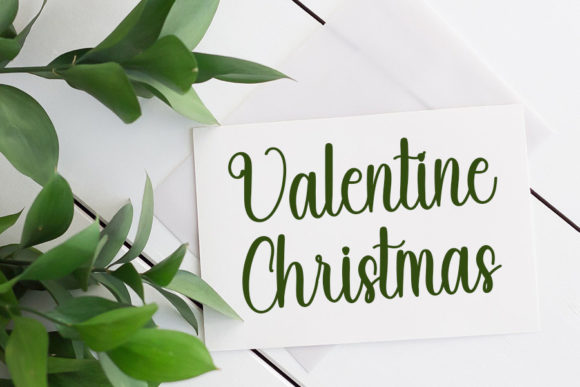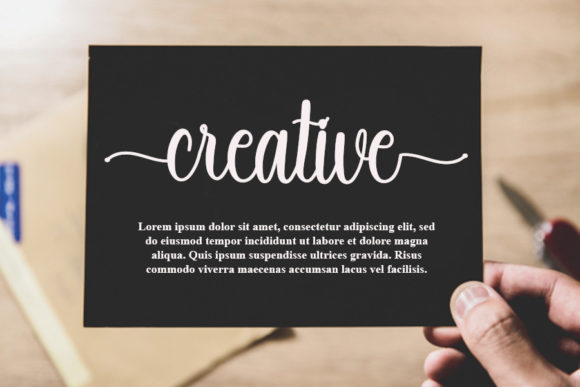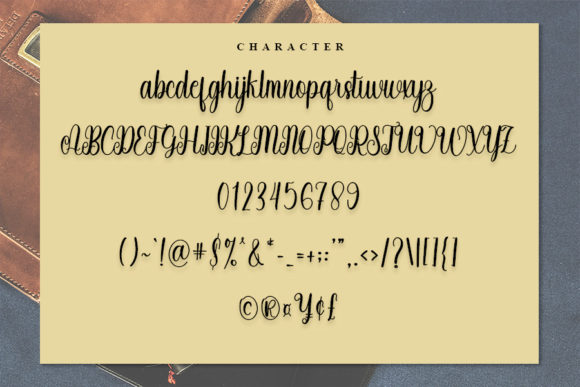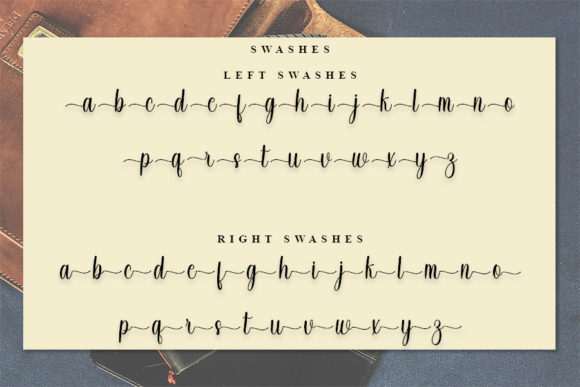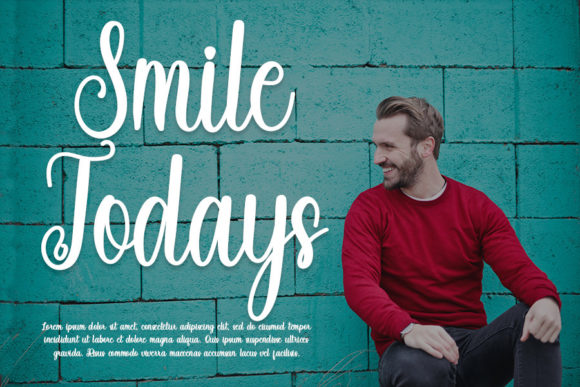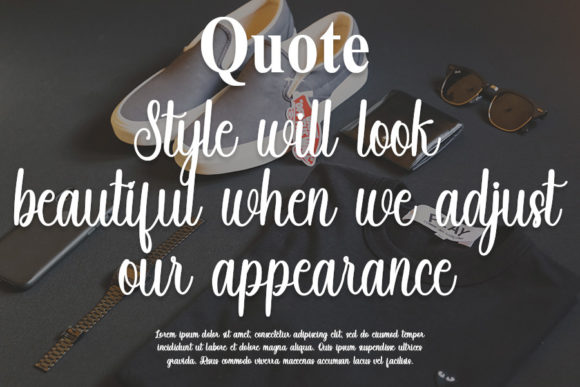
Williams Font
About Williams Font
Introducing “Williams,” a beautiful and refined script font that emanates a classy, elegant, and modern aesthetic. Versatile in its application, “Williams” is well-suited for a variety of design purposes, including logos, branding, invitations, stationery, wedding designs, social media posts, and beyond. With its sophisticated allure, this font adds a touch of style and grace to your creative projects.
The classy and elegant appearance of “Williams” makes it an excellent choice for crafting logos that exude a timeless and memorable quality. The refined script offers a modern edge while retaining an air of sophistication for a distinctive brand identity.
For invitations, stationery, and wedding designs, “Williams” brings a sense of grace and elegance, enhancing the visual appeal of your creations. The font’s beautiful script lends itself well to formal occasions, providing a touch of sophistication to your special event materials.
In the realm of social media, “Williams” shines with its modern and stylish flair, ensuring your posts stand out with a touch of sophistication. Whether used in captions, quotes, or promotional materials, the font elevates your online presence.
The PUA encoding feature of “Williams” adds a layer of convenience, allowing easy access to a variety of glyphs and ligatures. This feature empowers you to customize and enhance your designs effortlessly, ensuring a seamless and enjoyable creative process.
In summary, “Williams” is more than just a font; it’s a refined design tool that enhances your creative endeavors. With its classy and modern appeal, this font becomes a versatile asset in your toolkit, infusing sophistication into every application, from logos to social media posts.